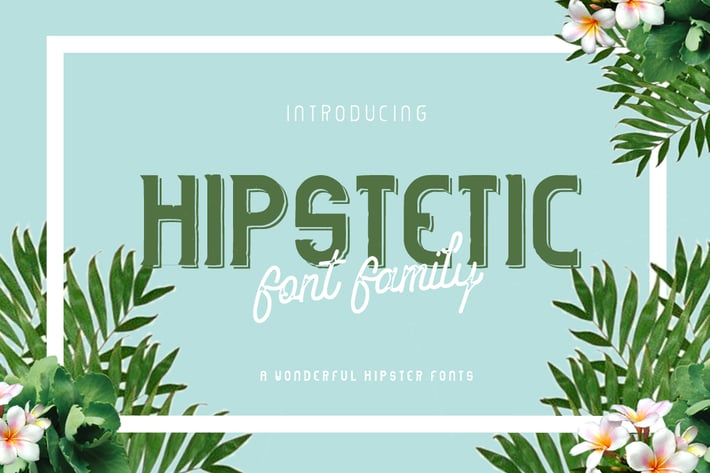
Hipstetic Font Family
Introducing Hipstetic Font Family a Hipster feel and deep inside vintage aura.
and suitable for any design needs, branding, modern advertising design, Art Quote, Book/Cover Title, special events, custom mug, pillow, t-shirts, any brush lettering needs and more.
- Regular Font with over 100 glyphs inside.
- 4 variants Font!!
- A-Z uppercase and lowercase only monoline
- Cool booster
- Handsome indentity
- with bonus uppercase and lowercase A-Z only monoline